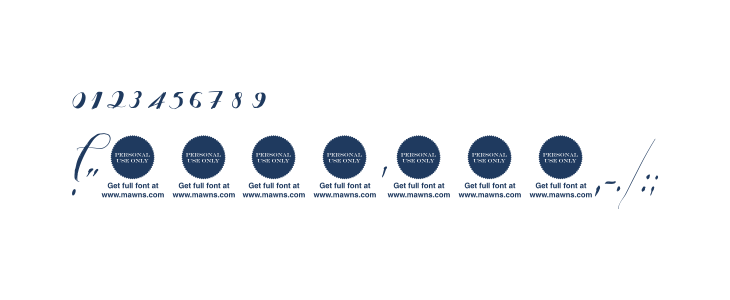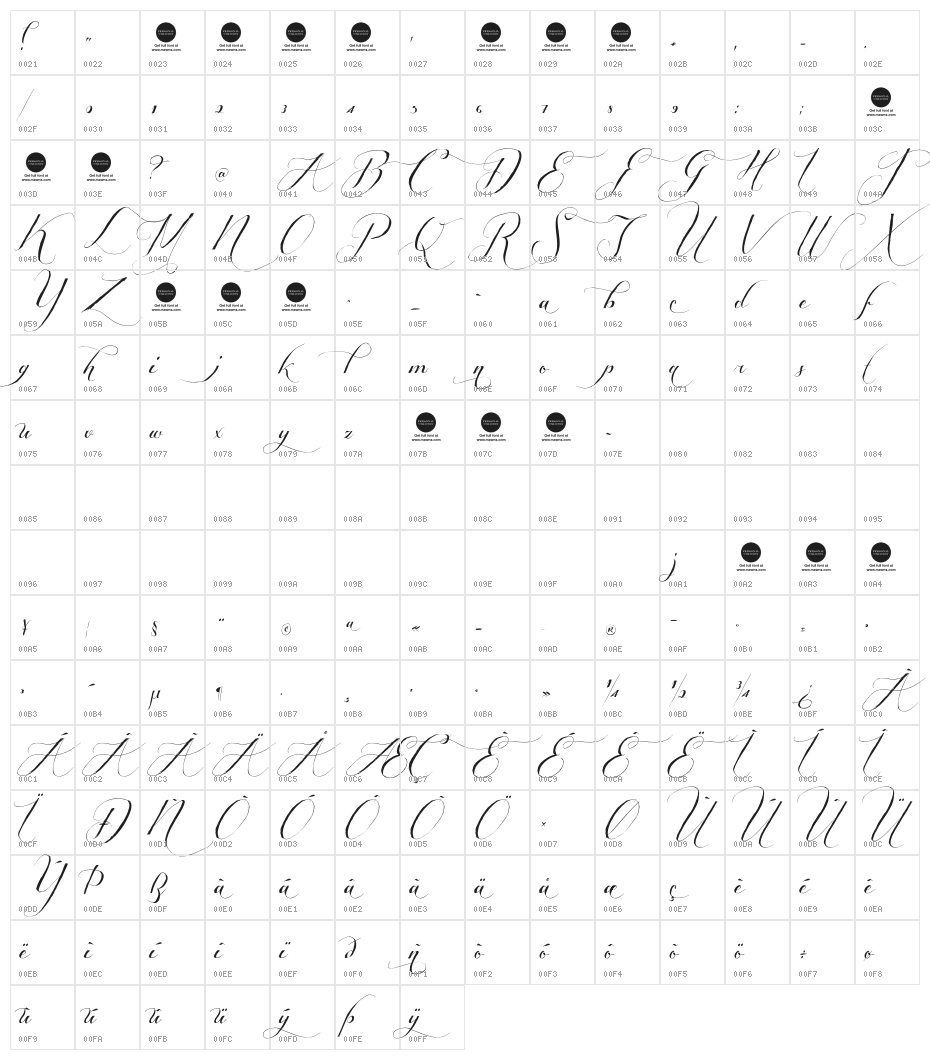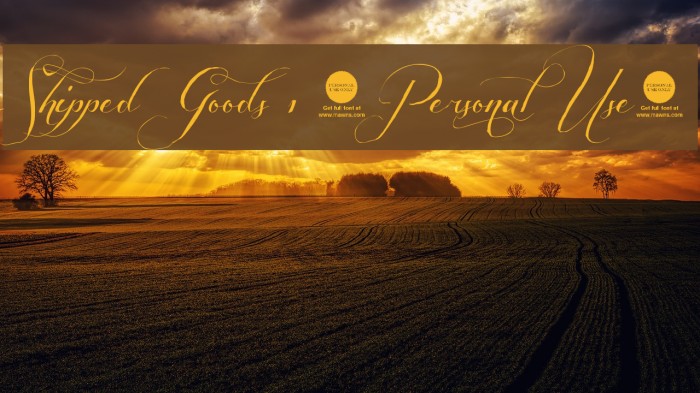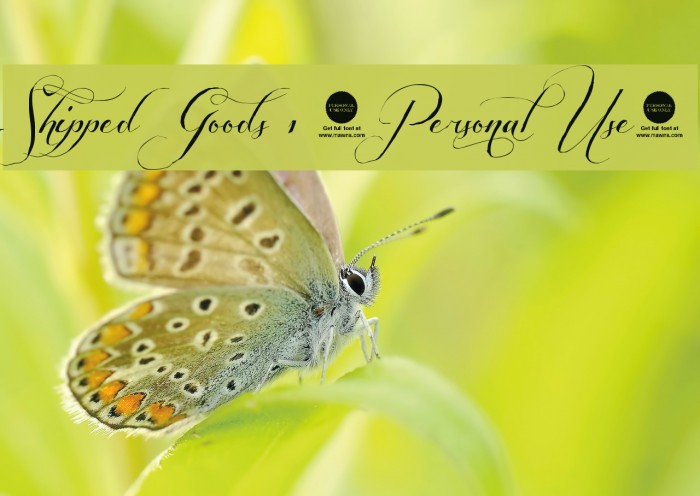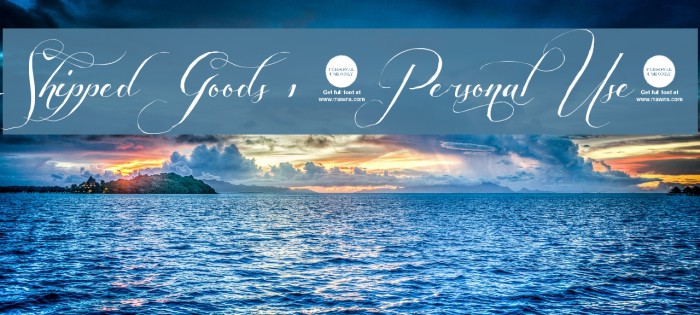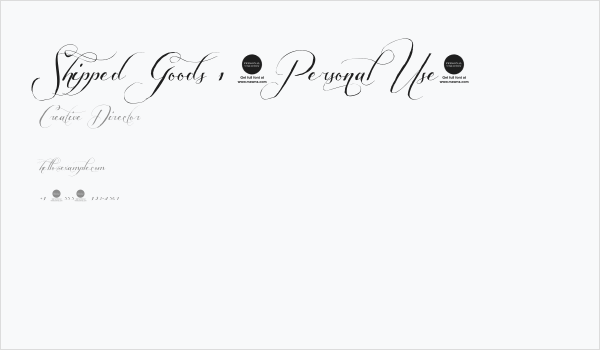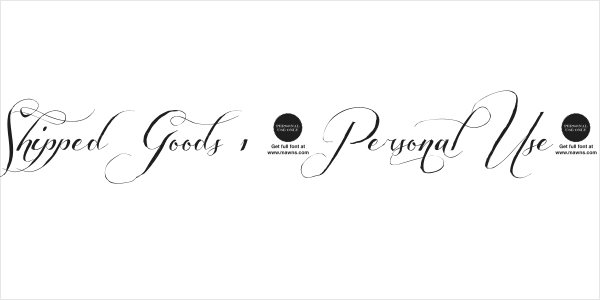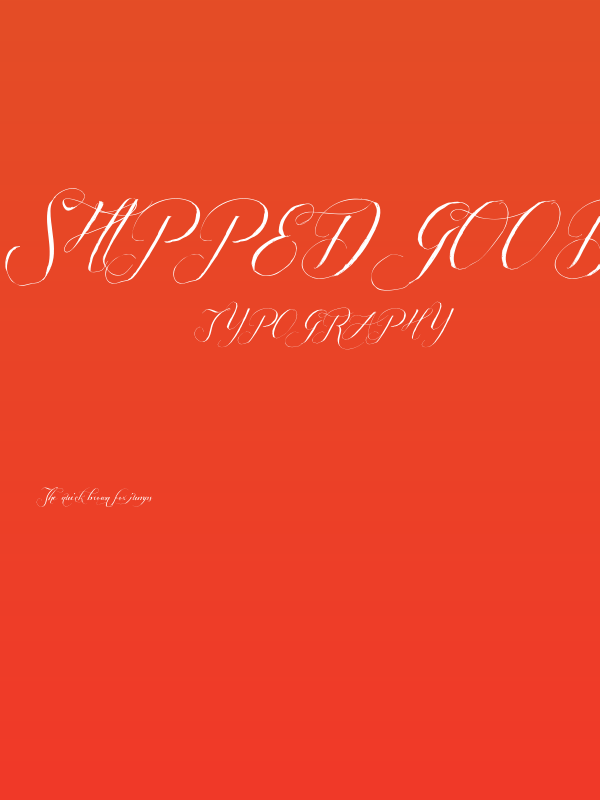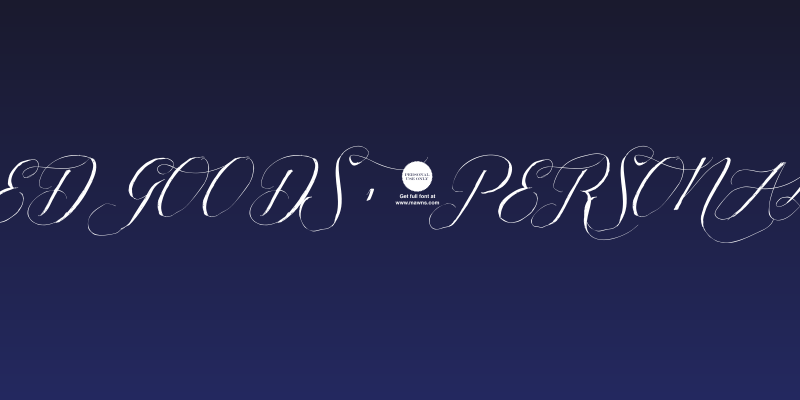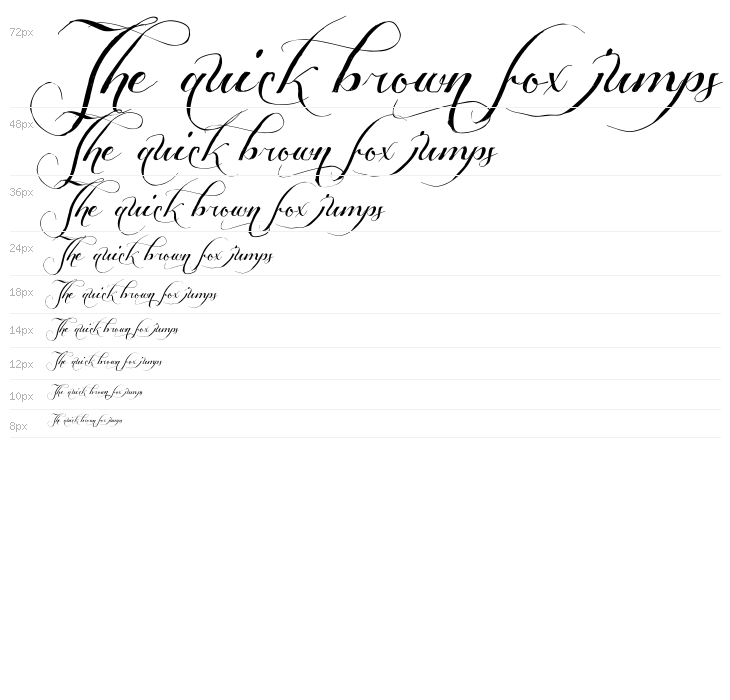
Shipped Goods 1 [Personal Use] Font
Shipped Goods 1 [Personal Use] Description
This elegant script font features flowing, intricate letterforms with high contrast between thick and thin strokes. The uppercase letters are particularly ornate, with elaborate swashes and flourishes that give the font a sophisticated and decorative appearance. The lowercase letters maintain a graceful and fluid style, complementing the uppercase with their own subtle curves and loops. The numerals are consistent with the overall design, offering a sense of continuity and elegance. This font is ideal for projects that require a touch of luxury and refinement.
Use CaseLogos, Invitations, Decorative text
Proposed ProjectsIdeal for wedding invitations, luxury branding, elegant stationery, and high-end product packaging.